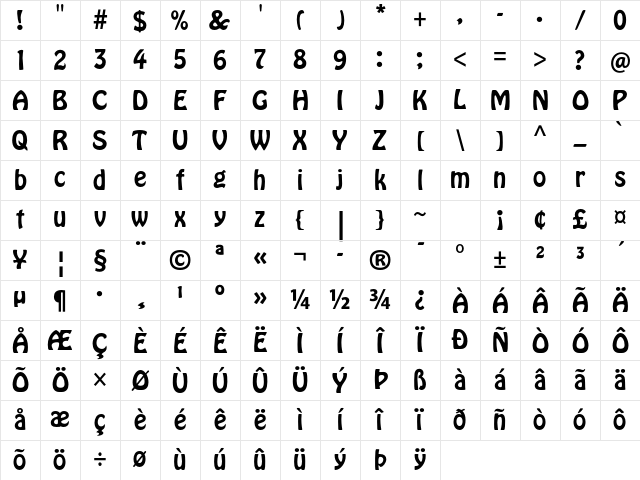
Hobo Std Medium
Designer: Morris Fuller Benton
Complete Hobo Std Medium glyph index. Displaying only characters natively supported by Hobo Std Medium font.
Design Context for Hobo Std
Hobo Std is a composed and adaptable typeface that performs quietly and consistently across a wide range of design contexts.